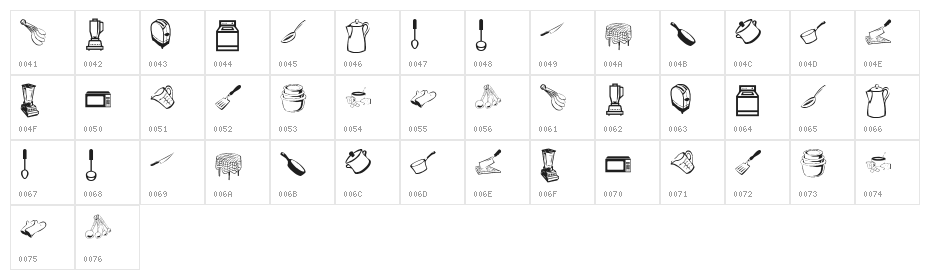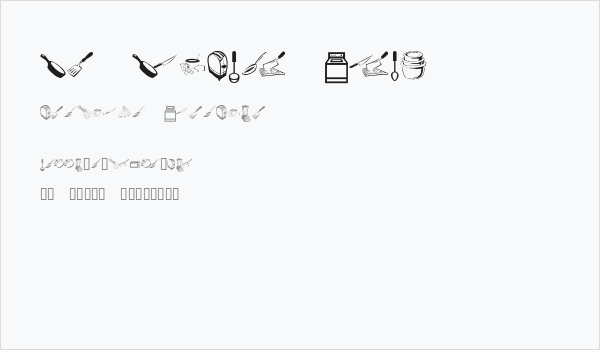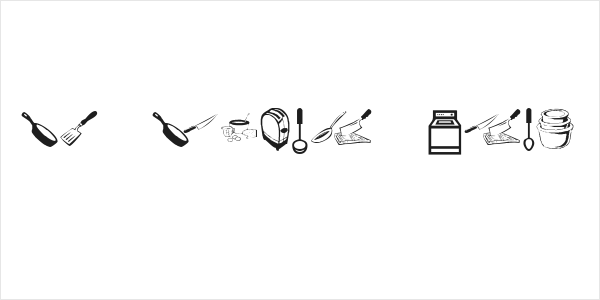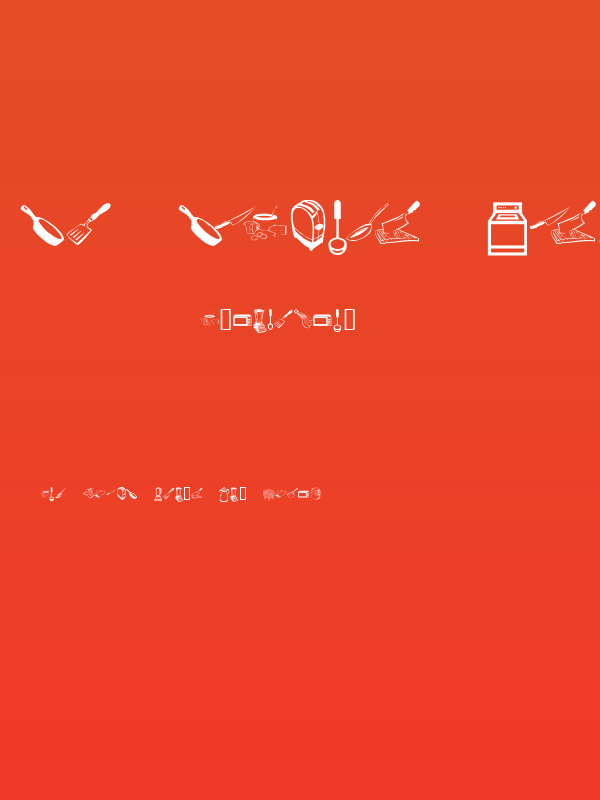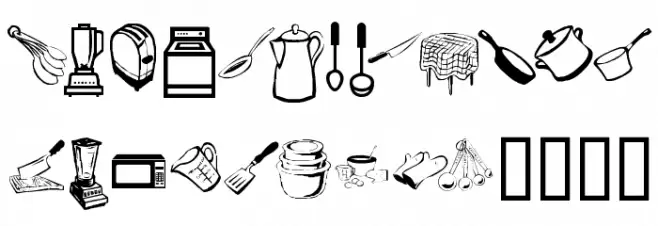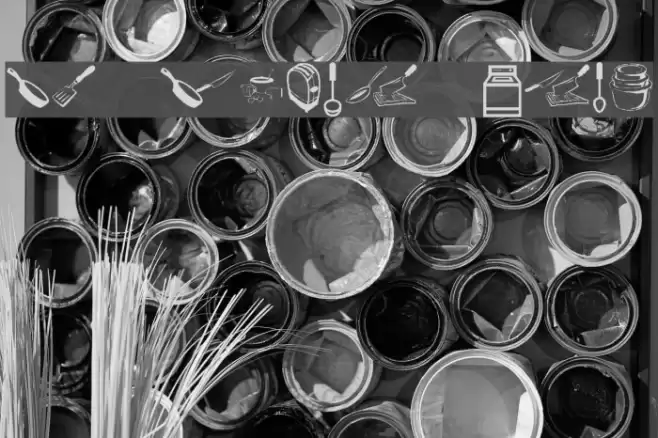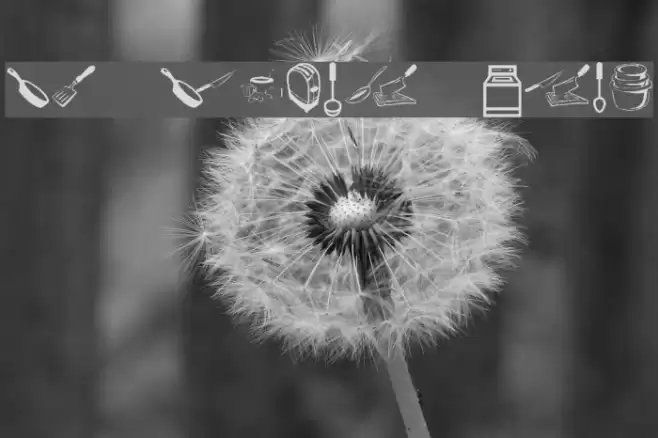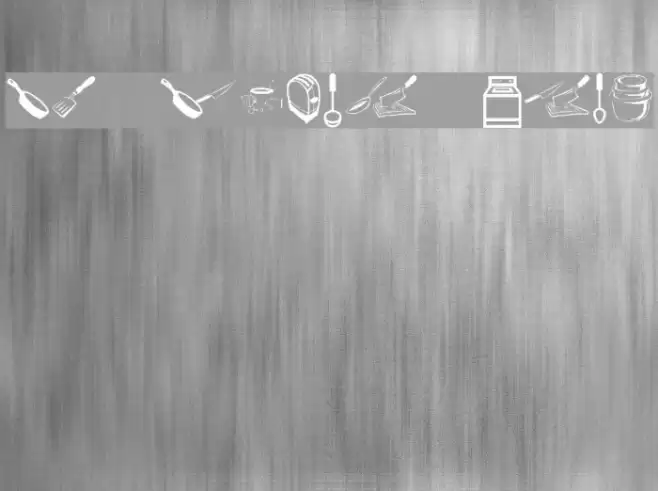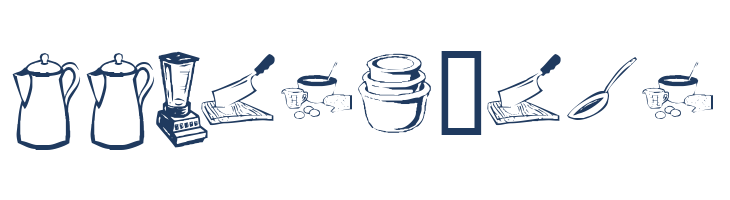
KR Kitchen Dings Font
This is a decorative dingbat font featuring a variety of kitchen-themed icons. Each character is represented by a different kitchen utensil or appliance, such as blenders, ovens, measuring cups, and spatulas. The icons are detailed and illustrative, making them suitable for adding a playful and thematic touch to culinary-related projects. The style is consistent across all icons, with a clear and bold outline that ensures visibility and impact. The font is ideal for creative projects where a visual representation of kitchen items is needed.
| Use Case | Logos, Decorative elements, Thematic designs |
| Proposed Projects | Ideal for recipe books, cooking blogs, kitchenware branding, and culinary event invitations. |